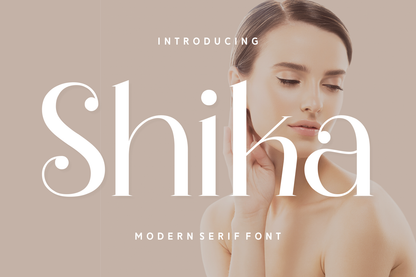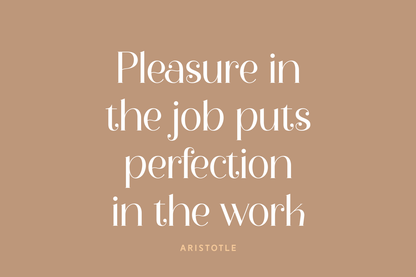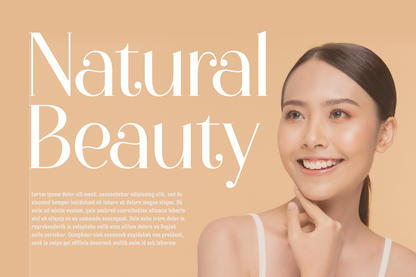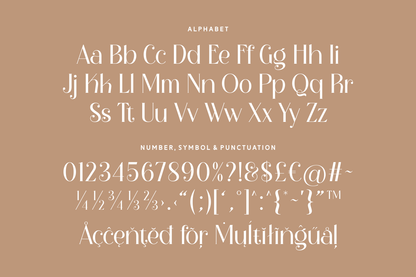
Shika is a modern serif font that radiates elegance, femininity, and style. With its soft high contrast strokes, artistic terminals, and graceful curves, Shika brings a luxurious and contemporary feel to any design.